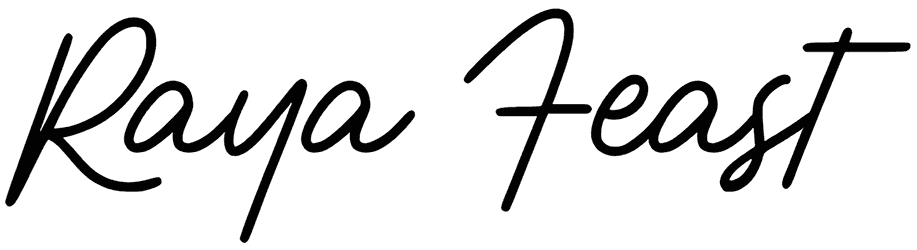
Raya Feast Font
The font that you use in designing posters, logos, magazines, branding, and banners somehow demonstrates your level, so it would be best to include an 80s neon font such as Raya Feast to prove your professionalism to everybody.
This handwritten font has a cursive design that dances along the baseline, thus, it conveys a sense of drama, softness, and precision to the audience. Considering all its benefits, a lack of good readability won’t be a serious problem.